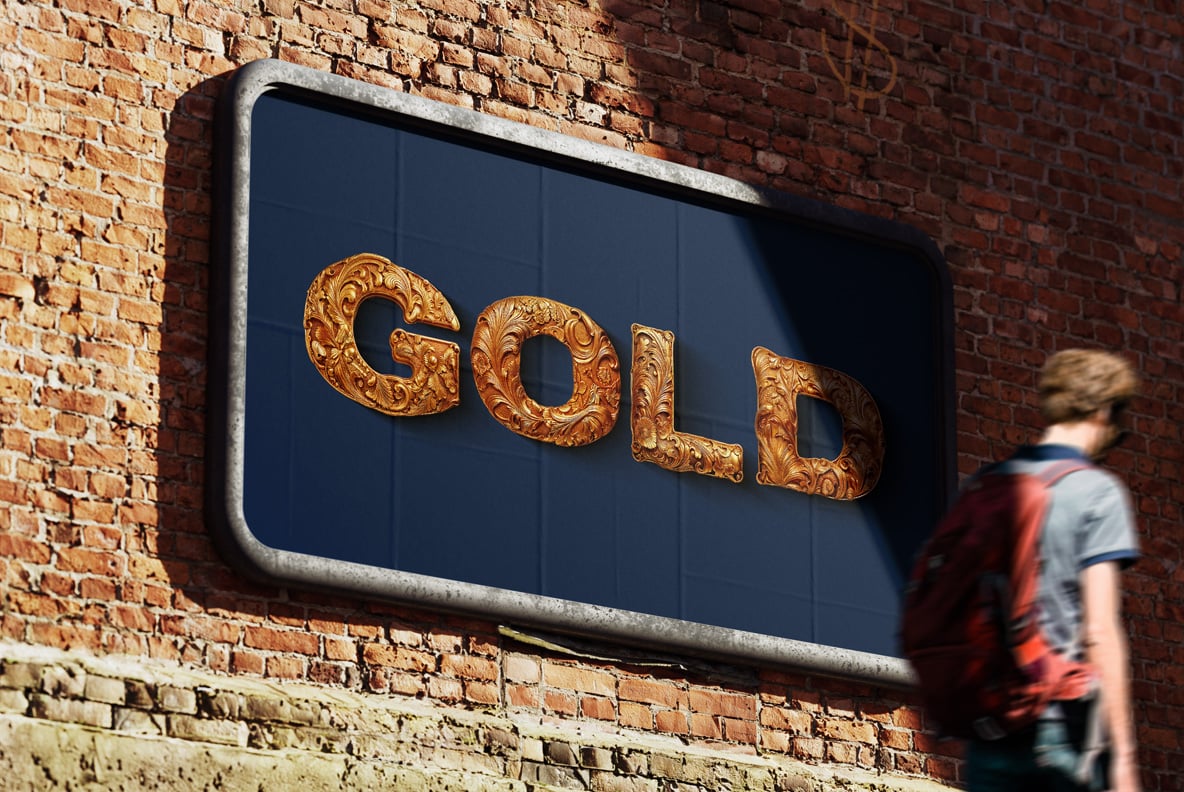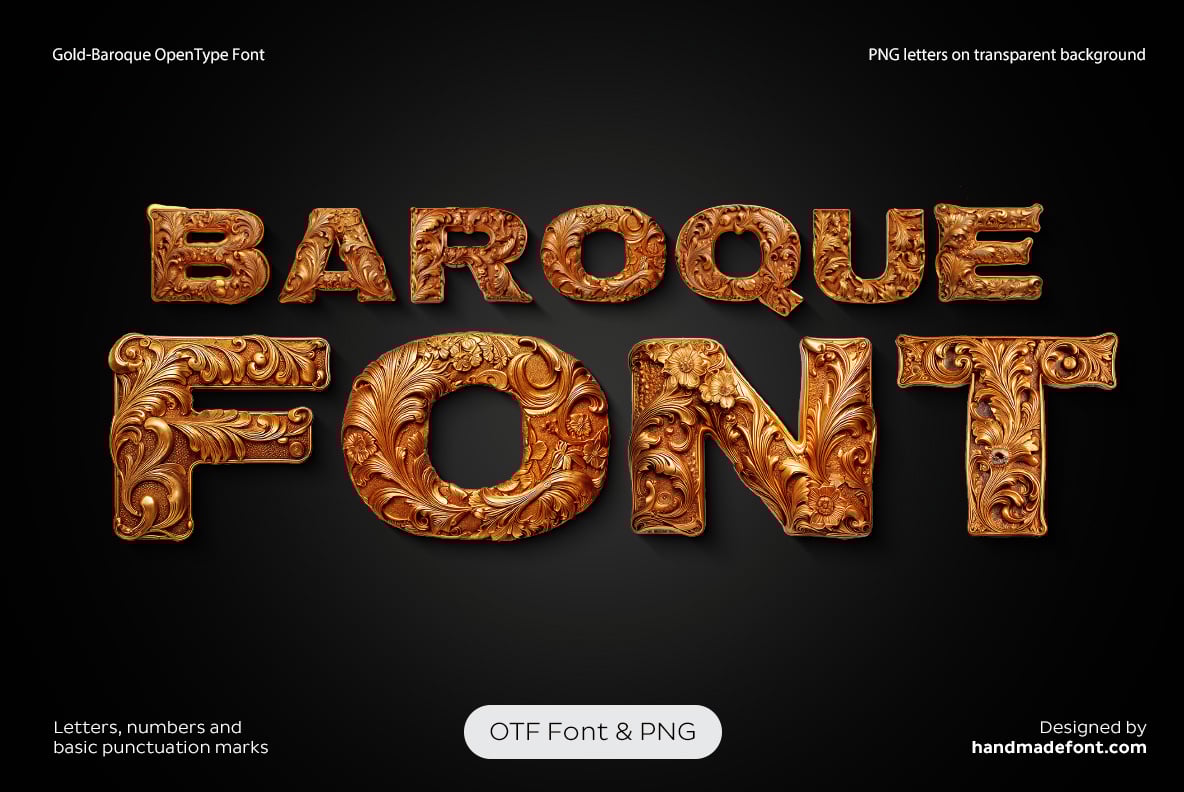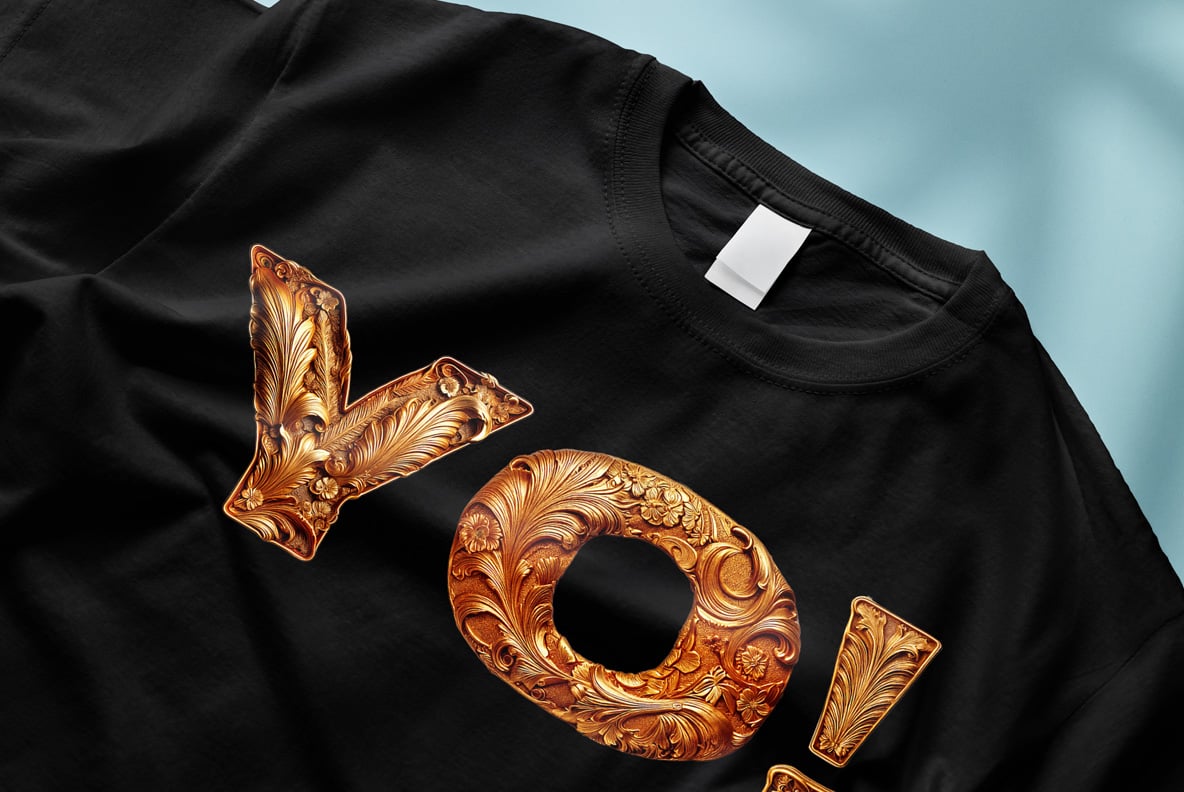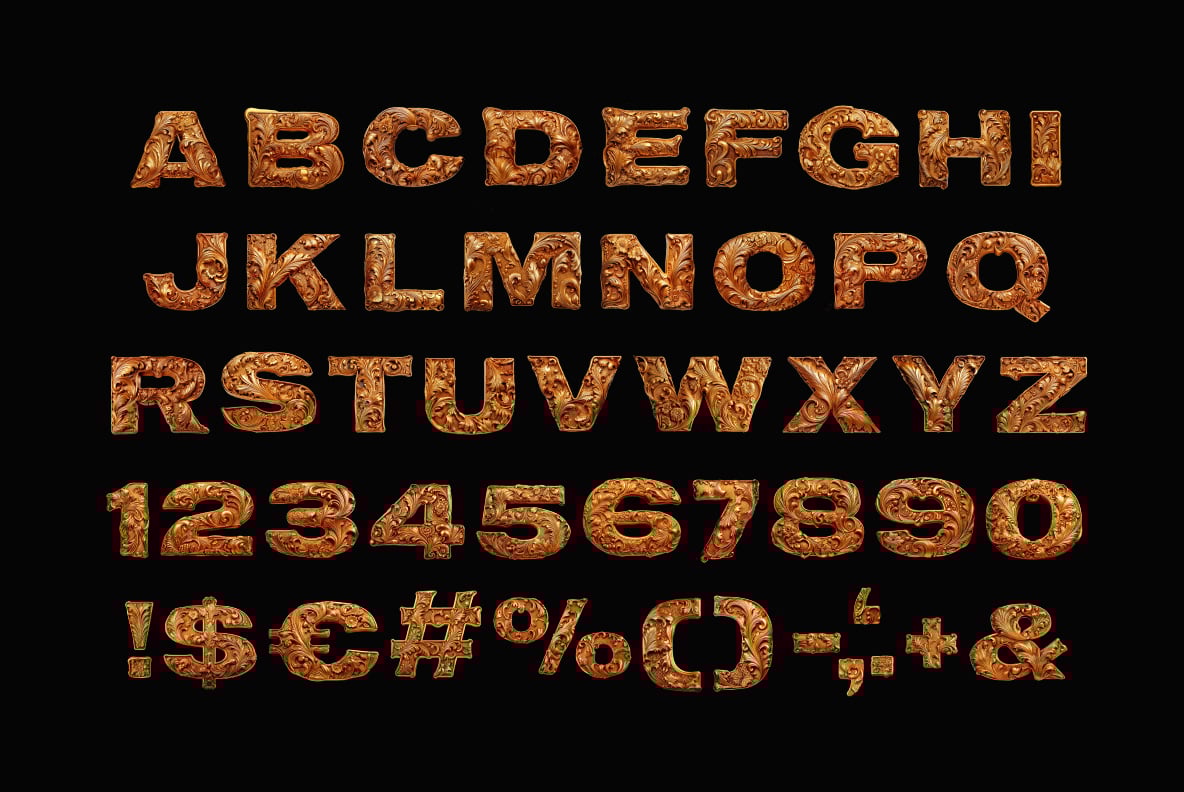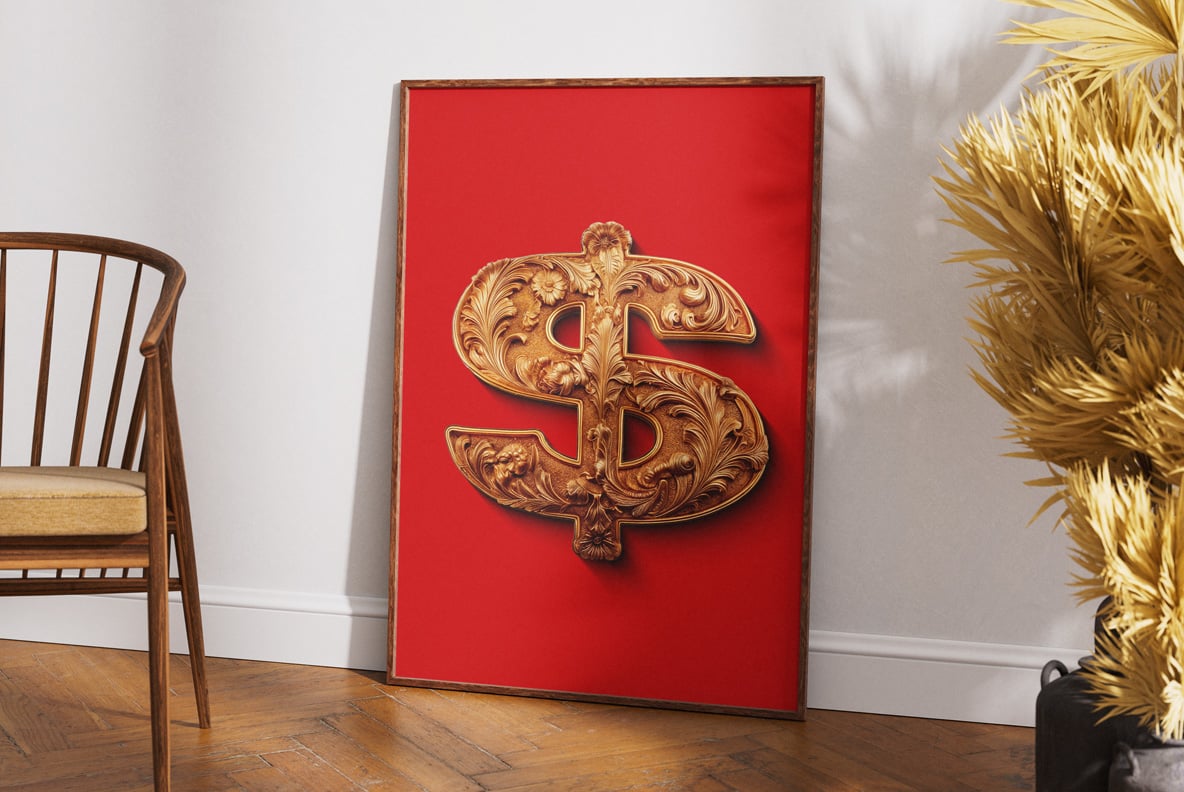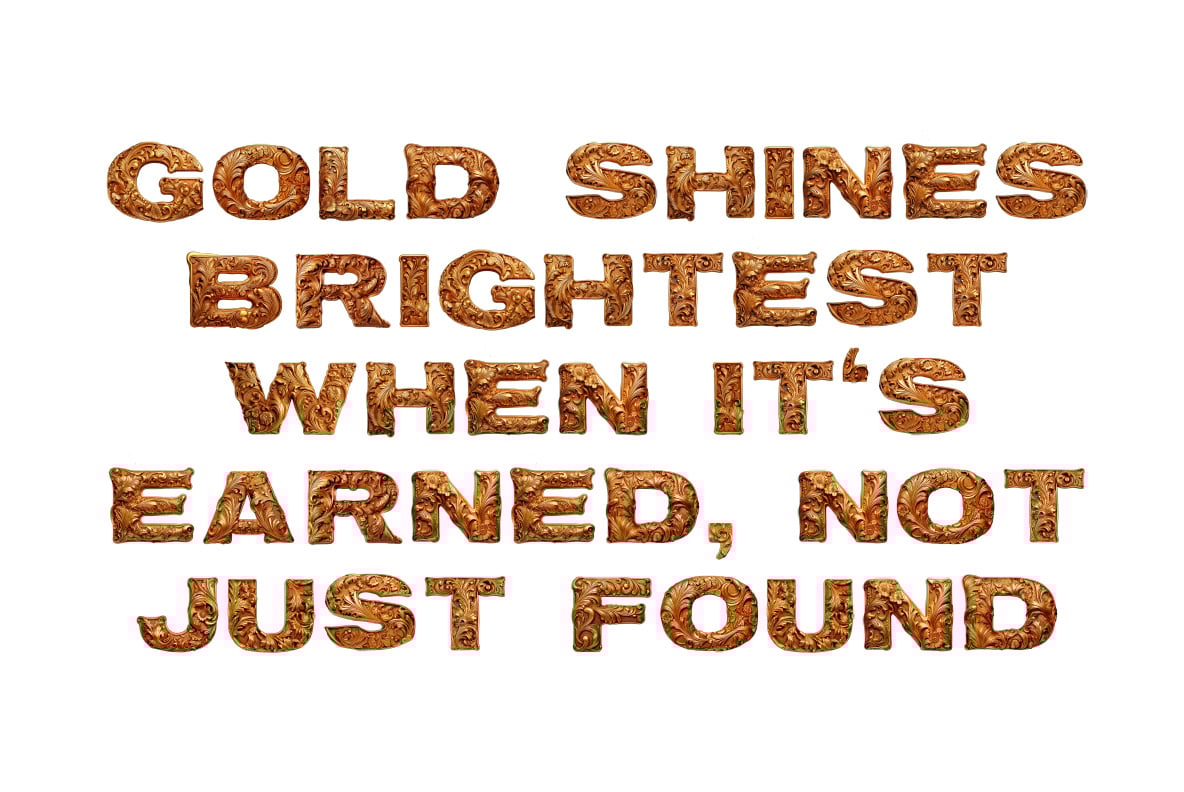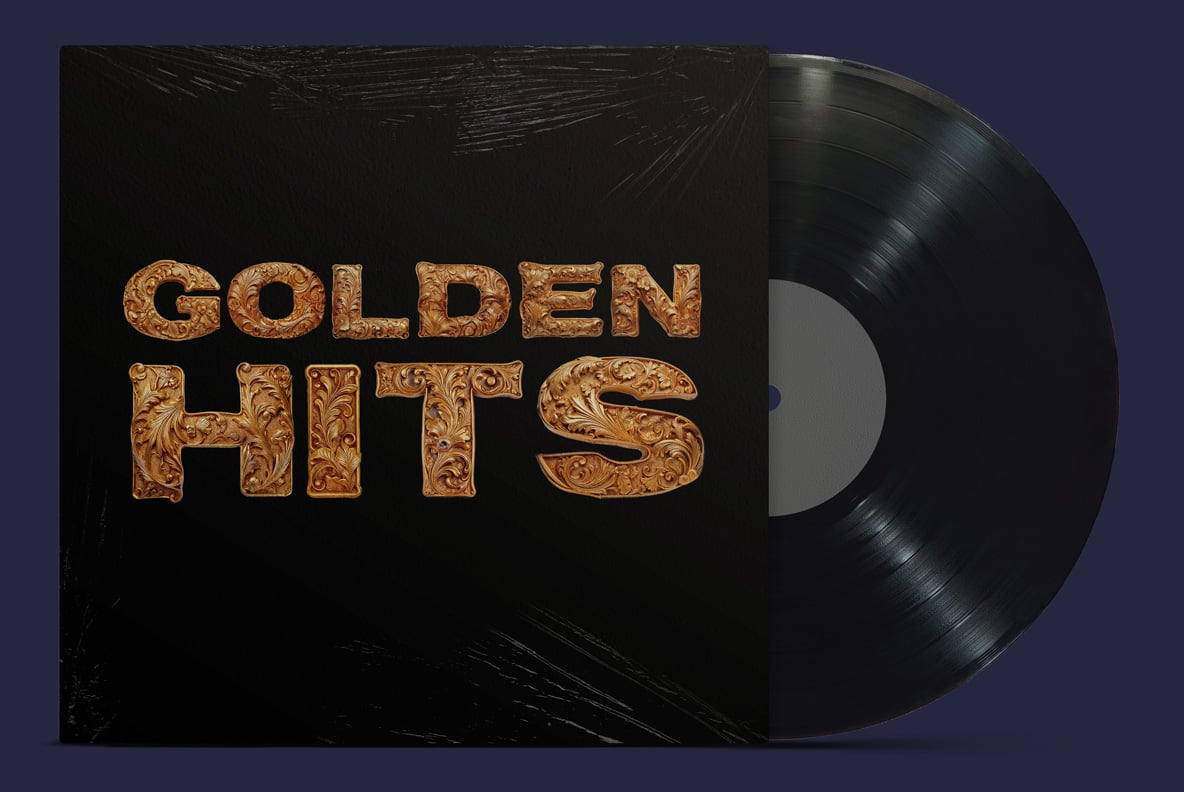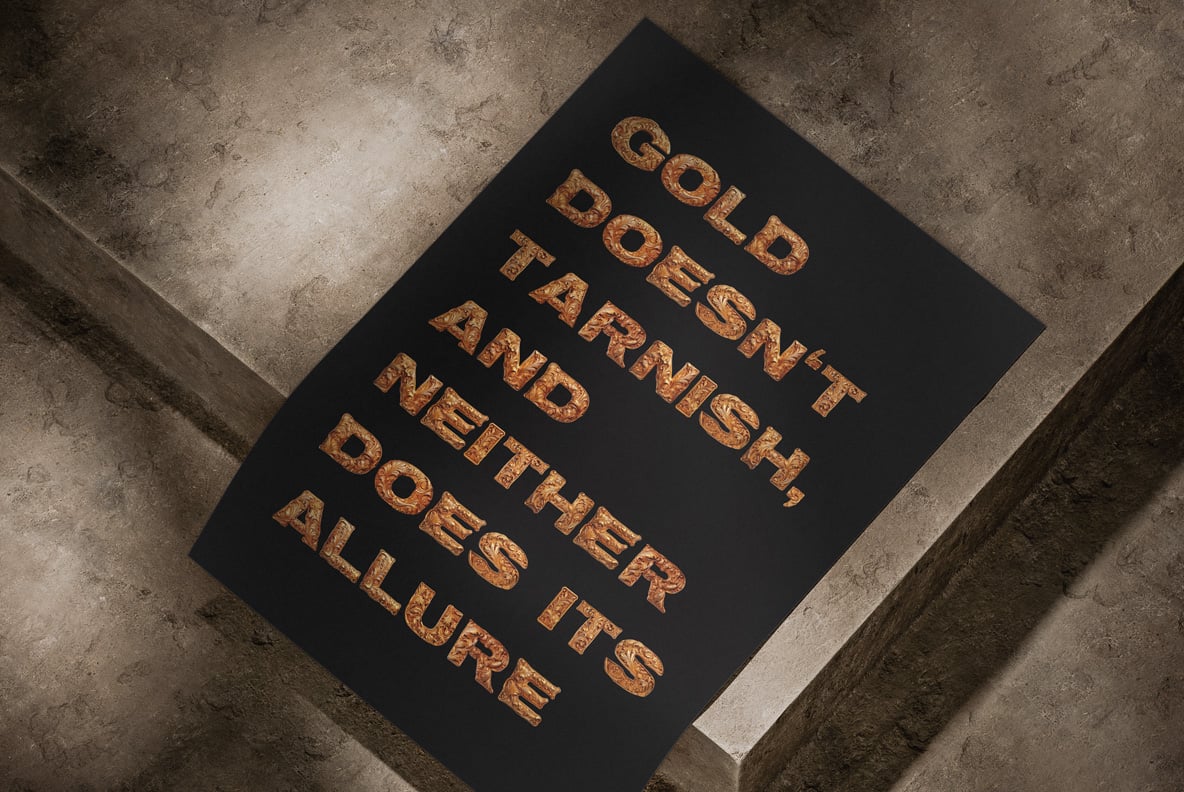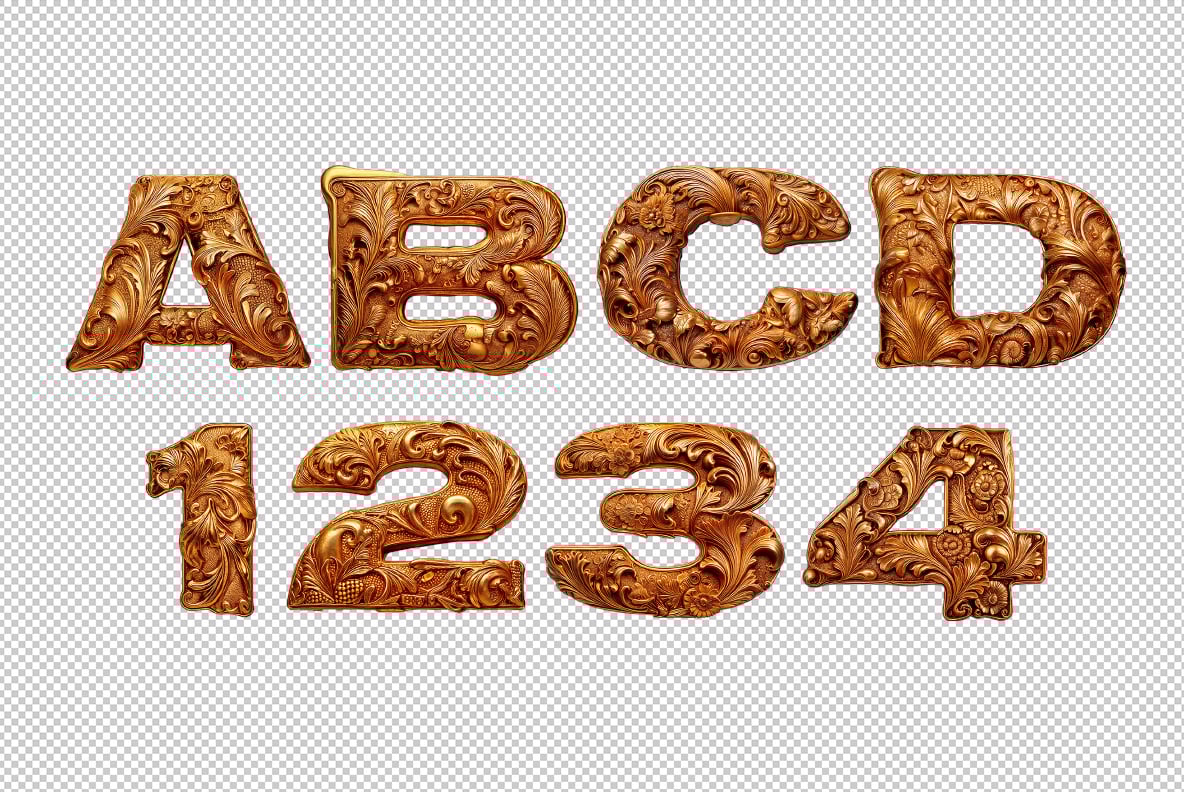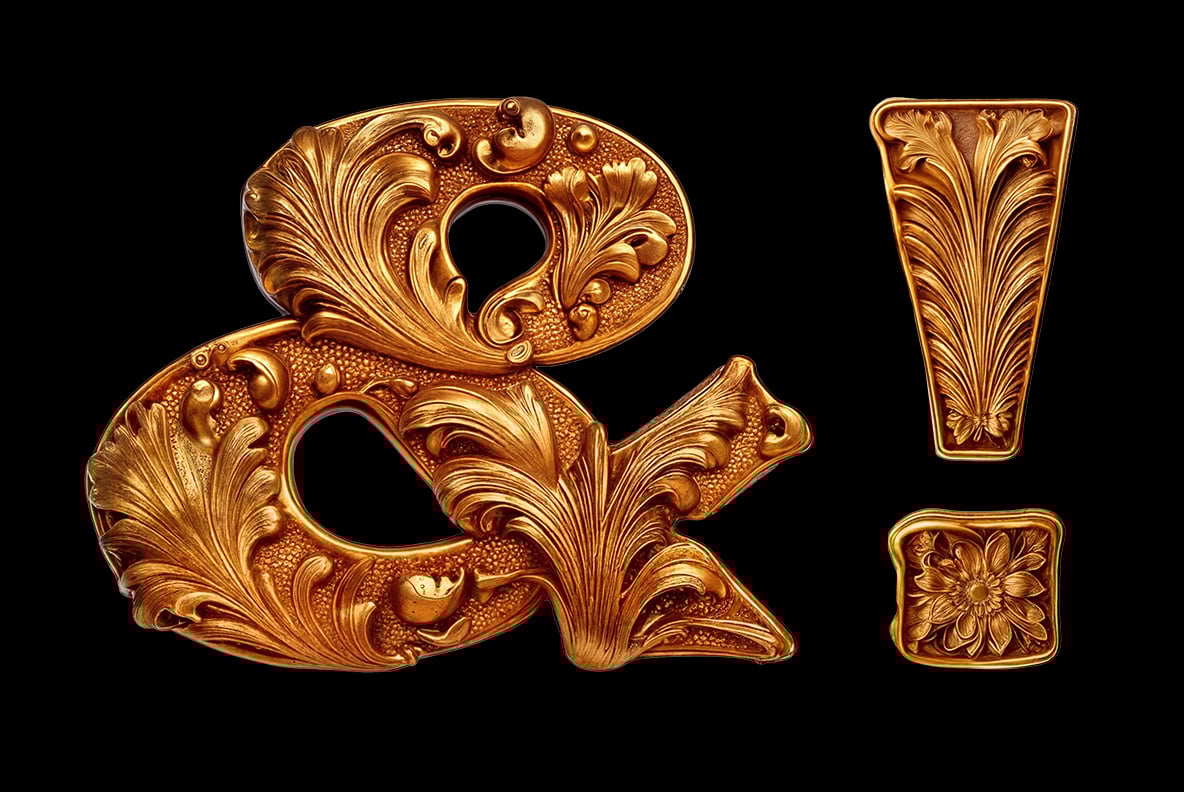
Gold Baroque Font
Gold Baroque Font exudes opulence and grandeur, bringing a touch of regal sophistication to any design. Each letter is adorned with intricate floral and ornamental patterns, featuring swirling motifs, delicate leaves, and blossoming details inspired by the Baroque era. The golden texture shimmers with exquisite craftsmanship, creating a radiant and luxurious effect. Tiny golden fragments dance around the edges, adding depth and a dynamic sparkle to the typography. This gold alphabet embodies elegance and artistry, making it a striking centerpiece for designs that demand attention. Its Baroque-inspired style transforms every word into a timeless work of art.